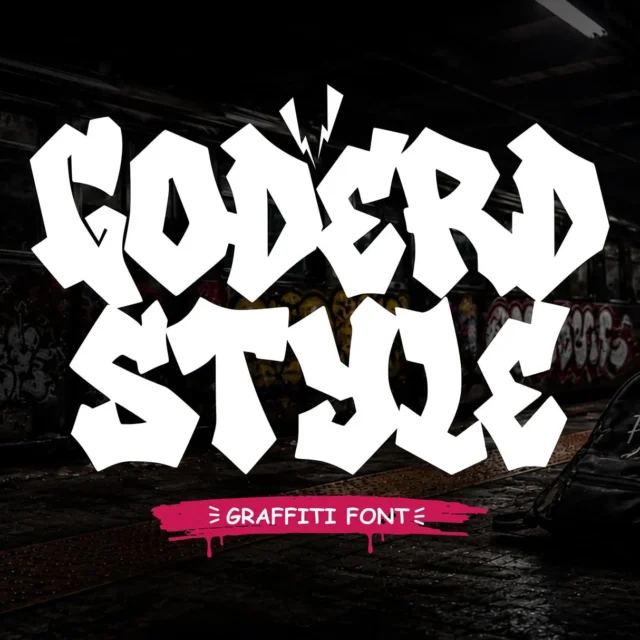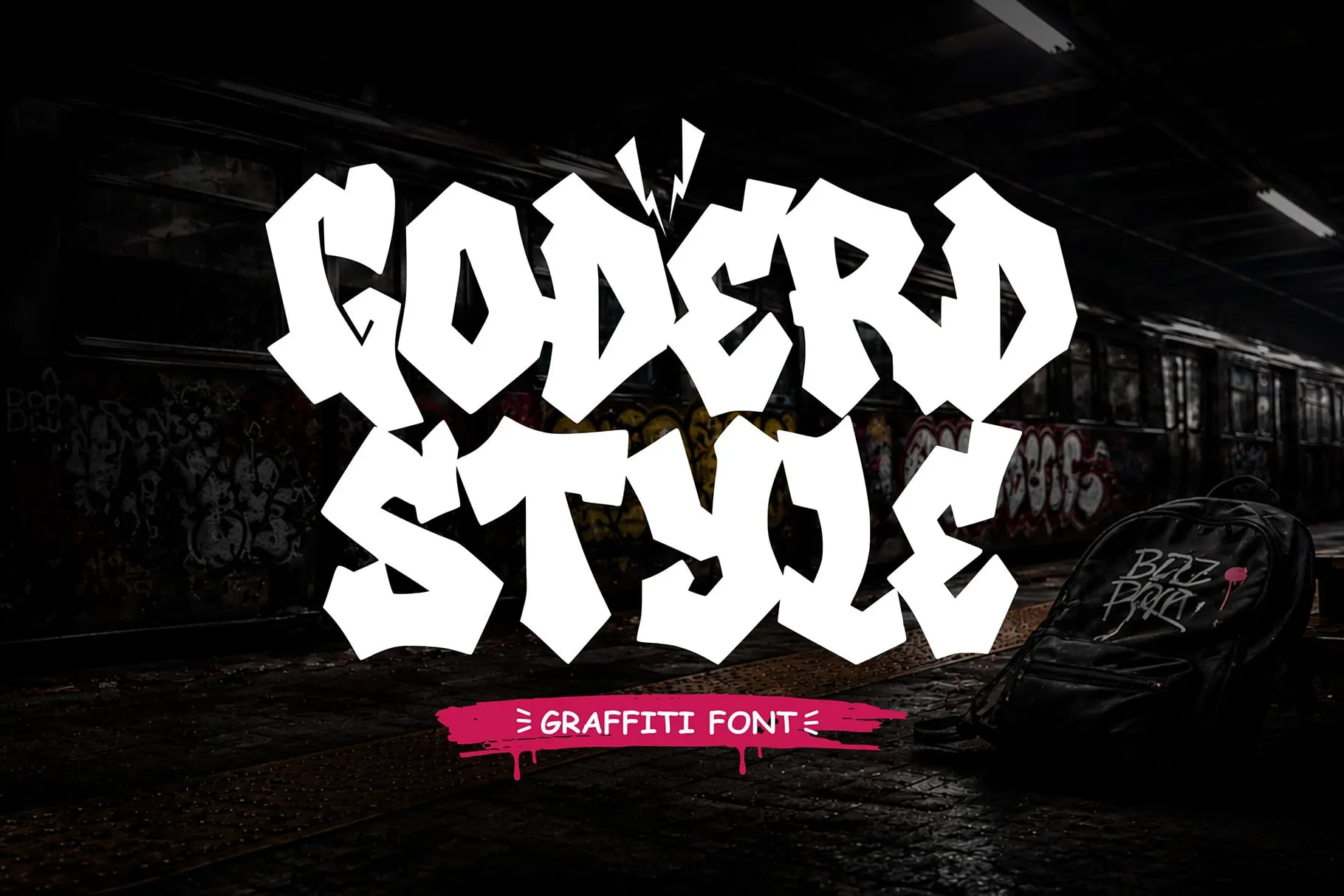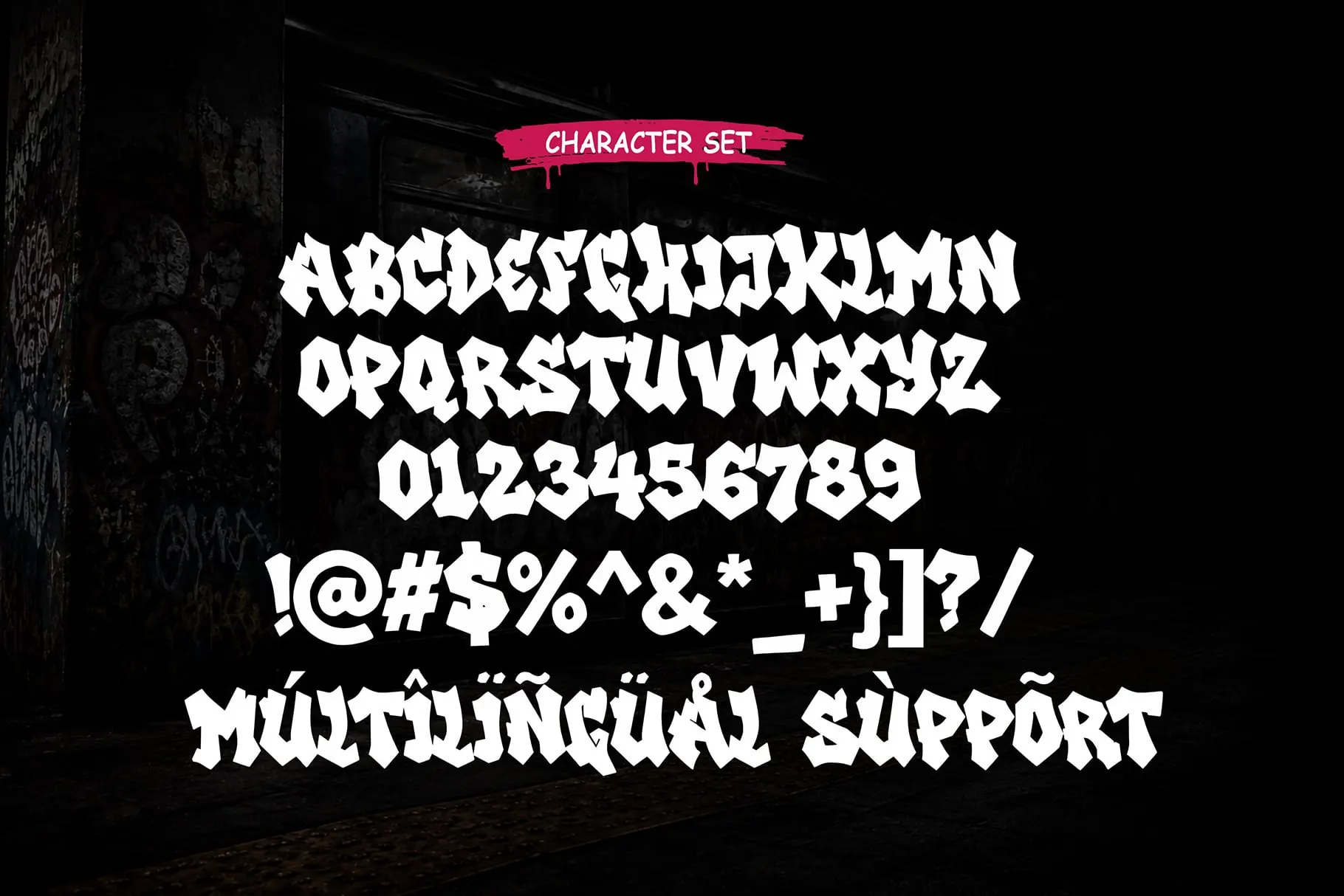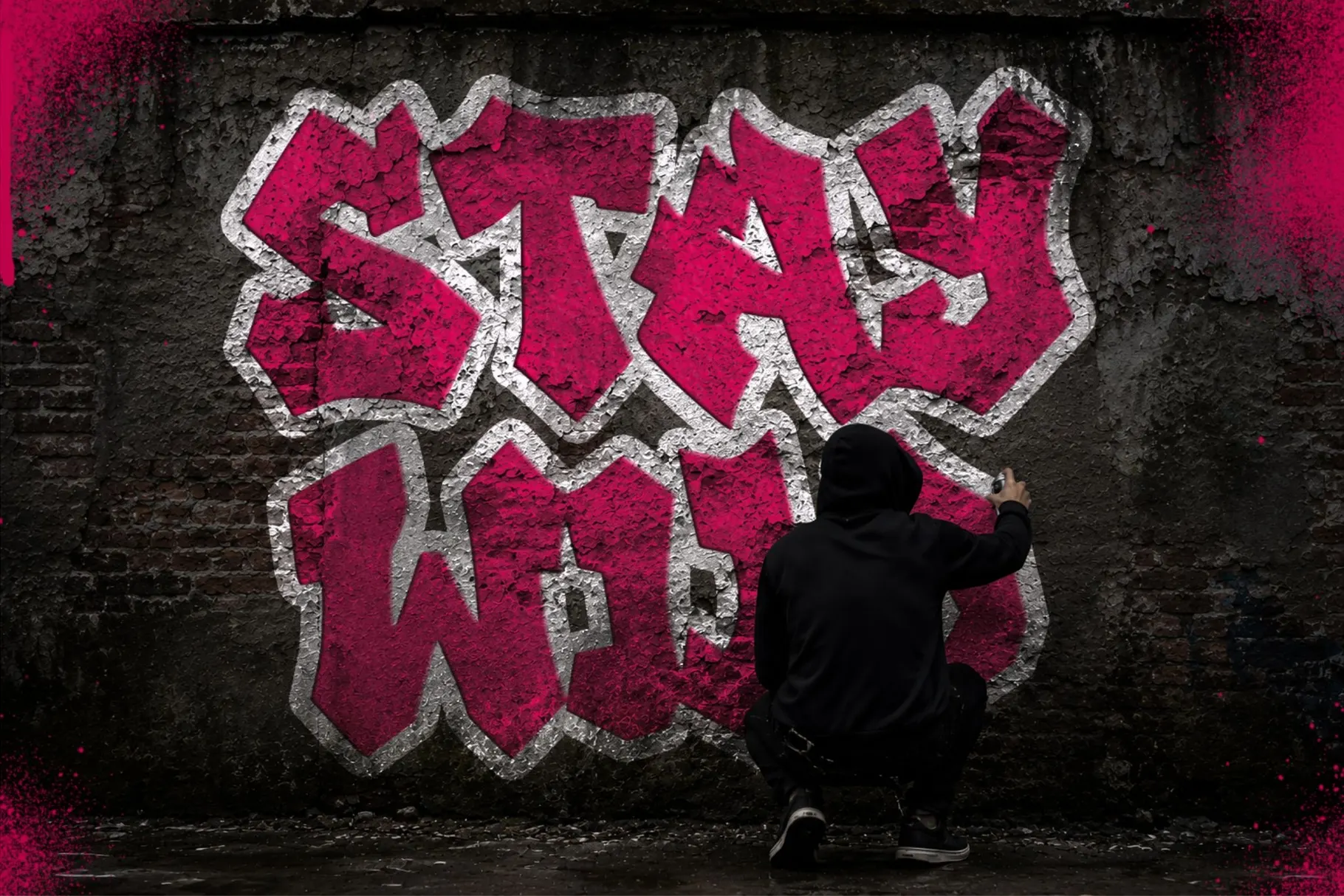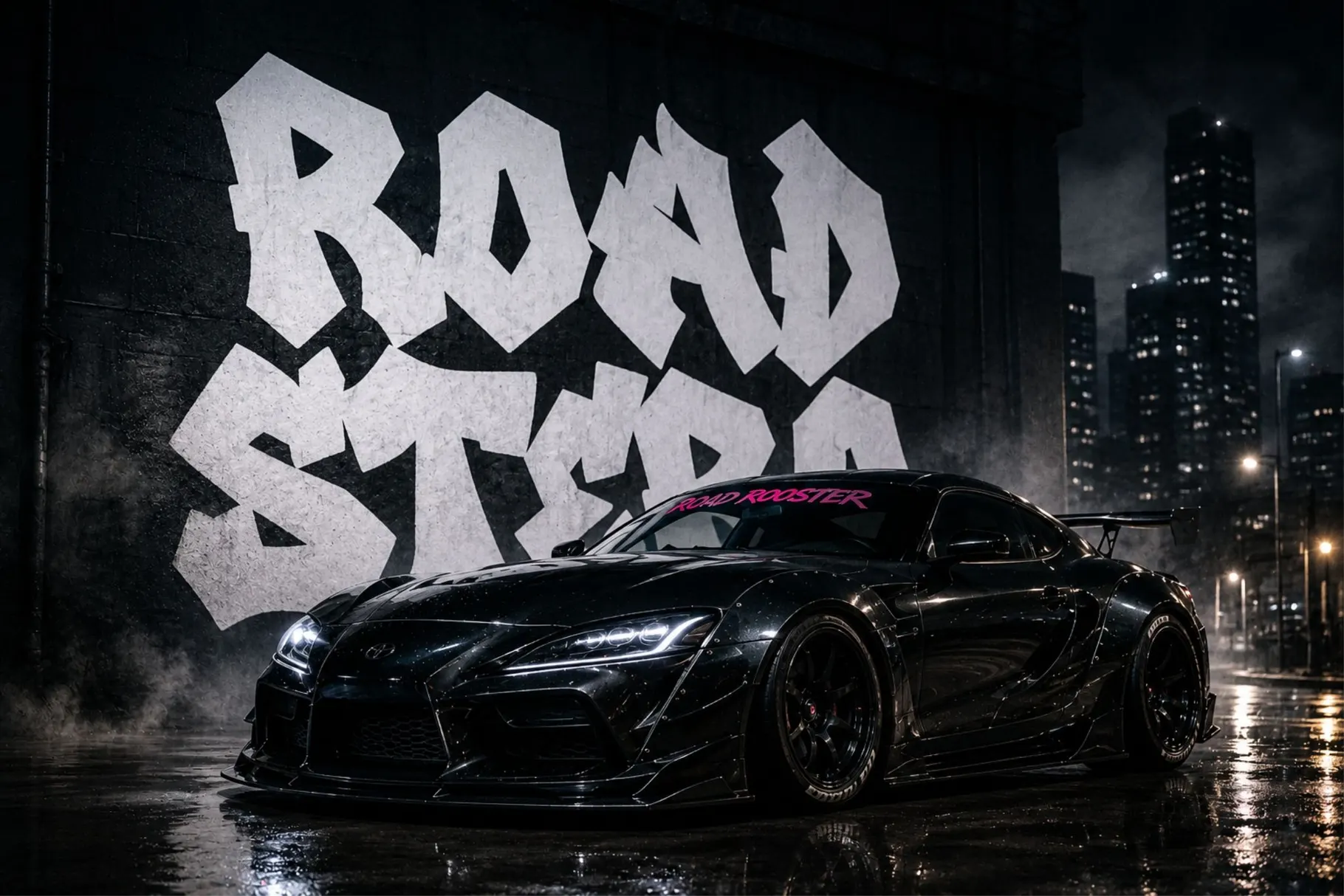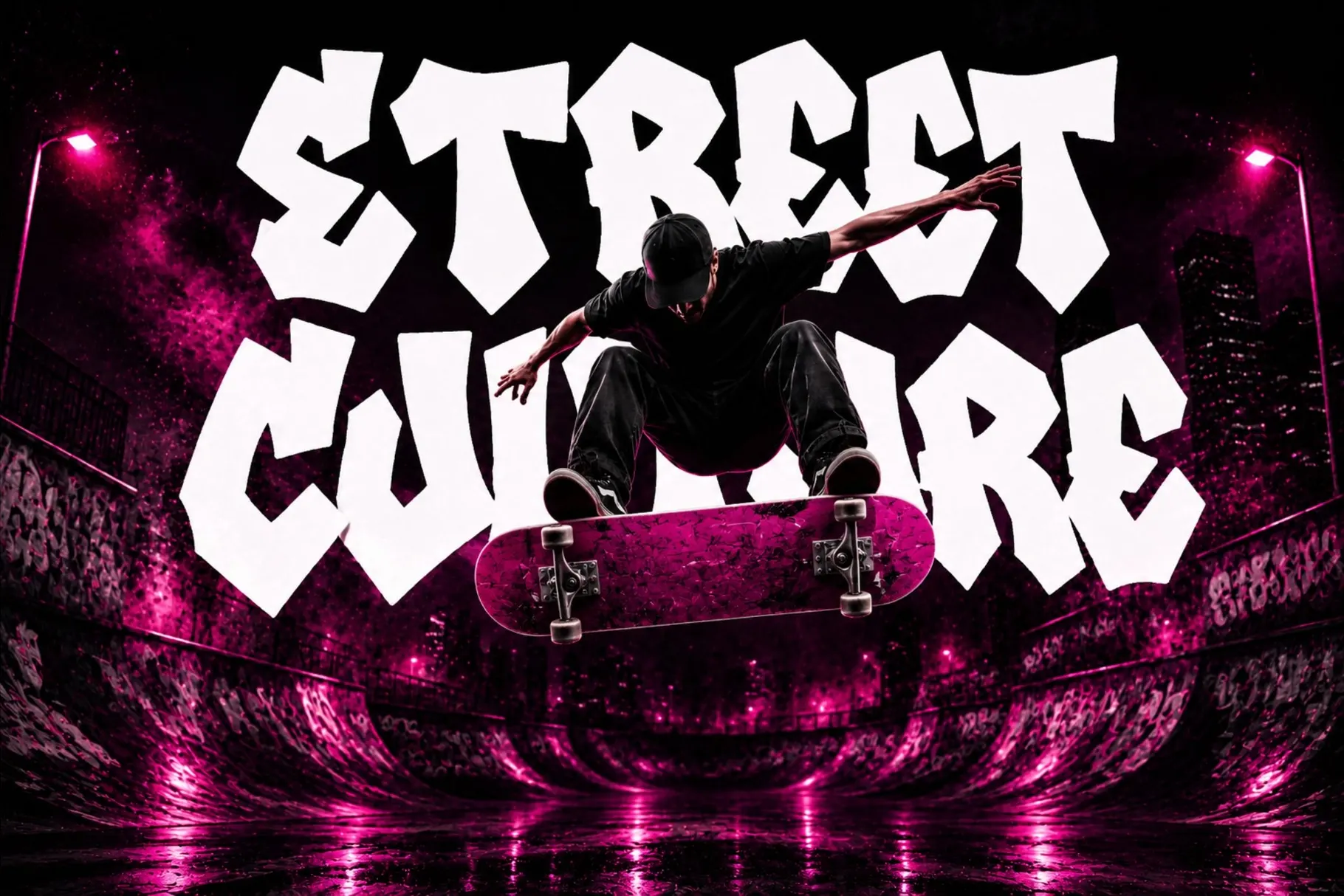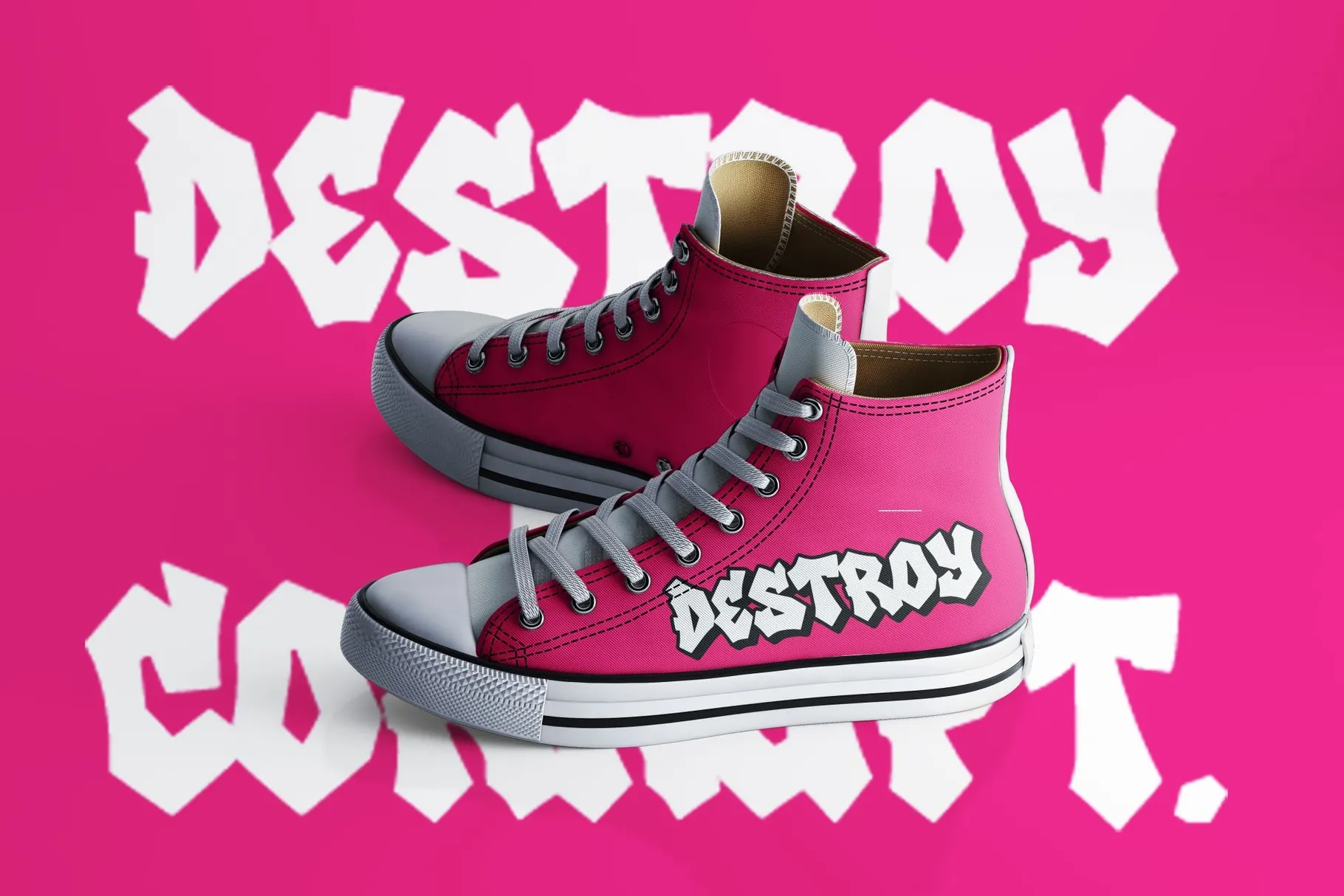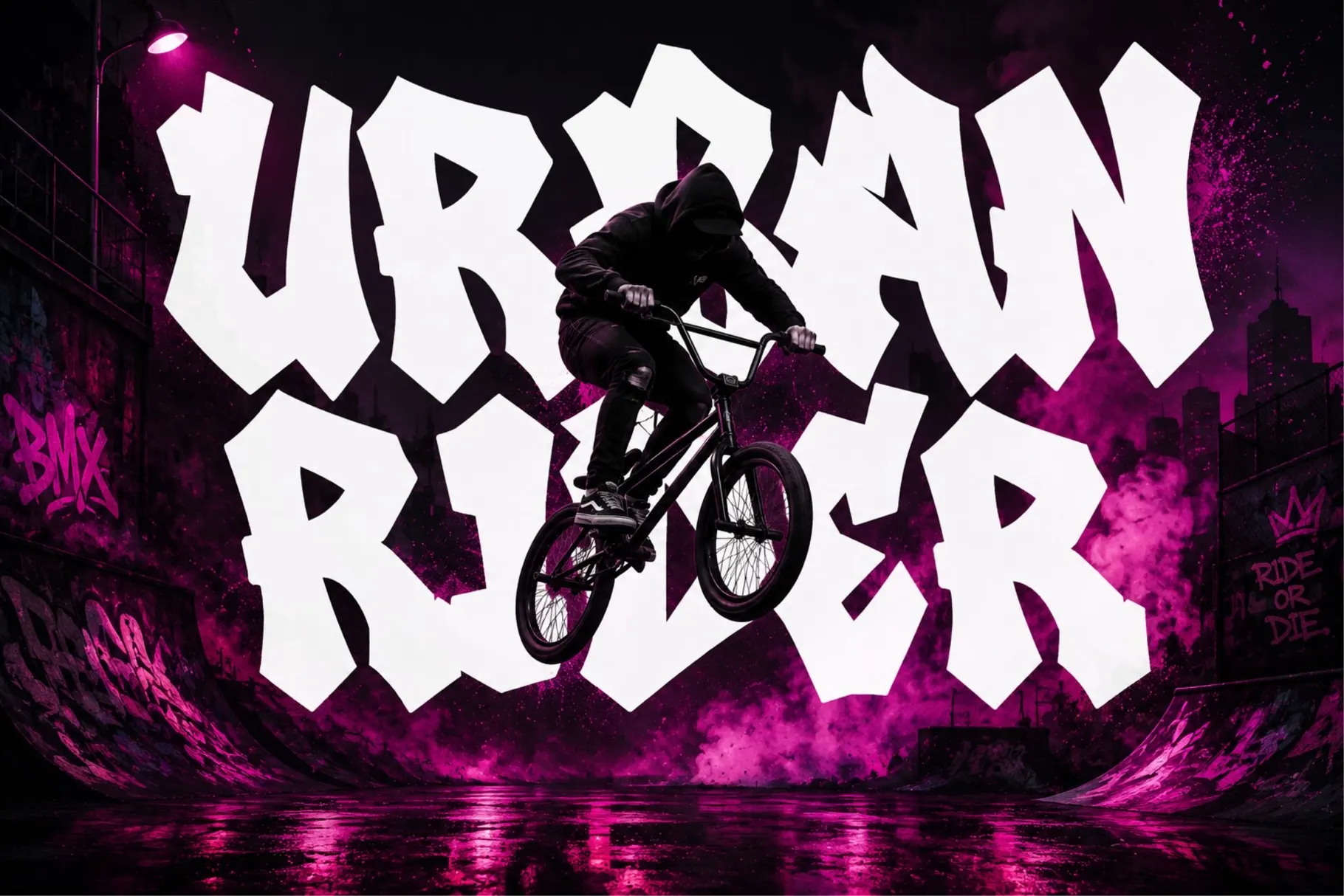
Goderd Style – Heavy Graffiti Font
Goderd Style
Heavy Graffiti Font
Goderd Style heavy graffiti font with bold urban lettering for logos, streetwear, posters, branding, and apparel. Includes OTF, TTF, WOFF formats.
About the Font
Goderd Style
Goderd Style heavy graffiti font with bold urban lettering for logos, streetwear, posters, branding, and apparel. Includes OTF, TTF, WOFF formats.
About Goderd Style
Goderd Style is a bold and commanding graffiti font designed for creators who want powerful typography with authentic urban attitude. Inspired by heavyweight street lettering, large-scale graffiti murals, and modern hip-hop culture, this heavy graffiti font delivers thick letterforms that create maximum visual impact. Whether you’re designing streetwear collections, music artwork, esports branding, posters, logos, or social media campaigns, Goderd Style graffiti font gives your typography a fearless presence that instantly captures attention.
Built with strong proportions and bold construction, Goderd Style reflects the confidence of traditional graffiti while maintaining the clean structure required for professional design work. This urban graffiti font is perfect for designers looking for typography that feels raw, expressive, and unmistakably bold without sacrificing readability.
Unlike ordinary display fonts, Goderd Style graffiti font emphasizes weight, balance, and visual strength. Every letter is carefully crafted to dominate layouts and communicate energy, making it an excellent choice for creative professionals who need typography that stands out in competitive visual environments.
A Heavy Graffiti Font Inspired by Authentic Street Culture
Street graffiti is known for its oversized lettering and fearless visual expression. Goderd Style graffiti font captures that same spirit by transforming classic heavy graffiti aesthetics into a professional digital typeface. Every character reflects the influence of large wall pieces, bold outlines, and urban lettering traditions.
This heavy graffiti font is designed to create strong headlines and unforgettable branding. The thick letterforms provide exceptional visibility while maintaining the organic personality associated with authentic graffiti culture.
Whether you’re creating fashion branding, promotional graphics, or music visuals, Goderd Style helps communicate confidence, creativity, and urban authenticity through bold typography.
Thick Letterforms with Maximum Visual Impact
The defining characteristic of Goderd Style graffiti font is its impressive visual weight. Thick strokes and balanced proportions give this graffiti font a commanding appearance that immediately draws attention.
Despite its bold construction, this urban graffiti font remains highly readable. The carefully designed spacing ensures that every word remains clear across logos, posters, apparel graphics, and digital marketing materials.
This balance between strength and clarity makes Goderd Style an ideal graffiti display font for designers who need typography capable of making a lasting impression.
Designed for Modern Branding and Streetwear
Modern brands require typography that communicates personality before a single word is read. Goderd Style graffiti font helps brands establish bold visual identities through expressive lettering inspired by urban culture.